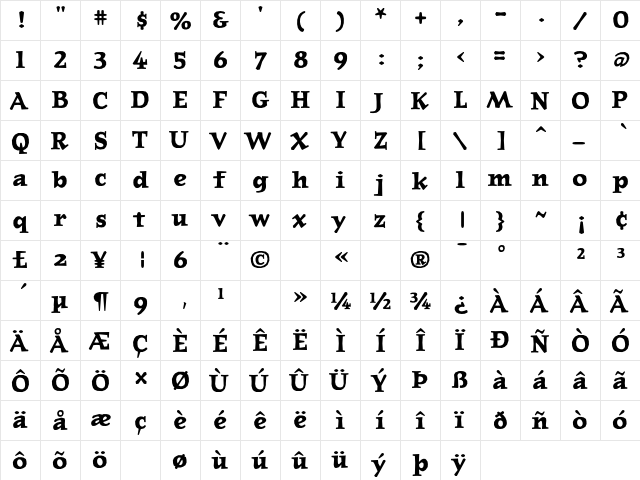
JournalLining Bold
Design Context for JournalLining Typeface
JournalLining offers clean, dependable letterforms without strong stylistic allegiance, making it a practical choice for designers who need flexibility. The heavy weight commands attention and anchors typographic hierarchies.